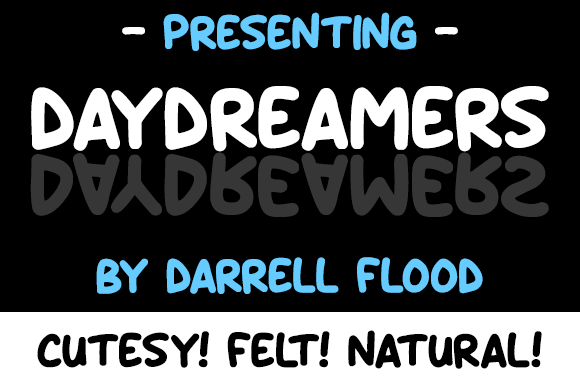
HomeScript FontsDaydreamers Font Script Fonts Daydreamers Font FacebookXPinterestWhatsApp About Daydreamers Font A smooth, casual font in a felt tip marker style. Perfect for comics, cartoons and general children’s themes! DOWNLOAD ON CREATIVE FABRICAThis font is sold and delivered by Creative Fabrica. Font Canyon may earn a commission if you buy through this link. People also explored Petter Shao Font Christmas Memory Font Helo Xmas Font Navue Font Simple Pattern Font Nouveline Font Sunny Day Font Summer Stylish Font Jampoot Font 270 0 TagsDaydreamers Font Previous articleMarker Notes FontNext articleWithout Makeup Font LEAVE A REPLY Cancel reply Comment: Please enter your comment! Name:* Please enter your name here Email:* You have entered an incorrect email address! Please enter your email address here Website: Save my name, email, and website in this browser for the next time I comment. Personal Use Free Time for Presents Personal Use Free Read more about this font Ginóra Personal Use Free Read more about this font BD AsciiMax Personal Use Free Read more about this font Roustel Personal Use Free Read more about this font BLOG Top 7 Google Fonts Alternatives for Faster and Privacy-Friendly Web Design (2025) Top 7 Google Fonts Alternatives for Faster and Privacy-Friendly Web Design (2025) When it comes to web typography, Google Fonts has long been the go-to... Elegant Wedding Invitation Fonts – Handwritten & Script Fonts Where to Buy American Fonts Online in 2024 Exploring Font Trends